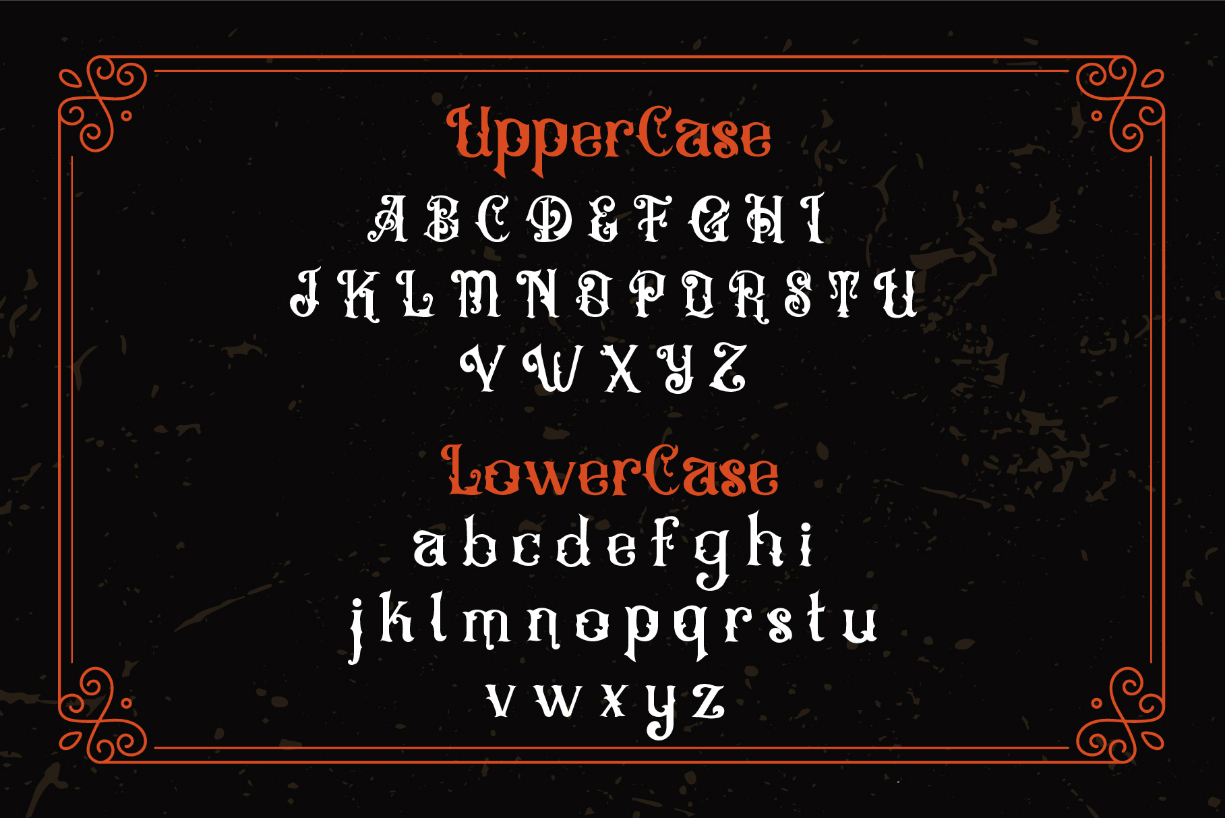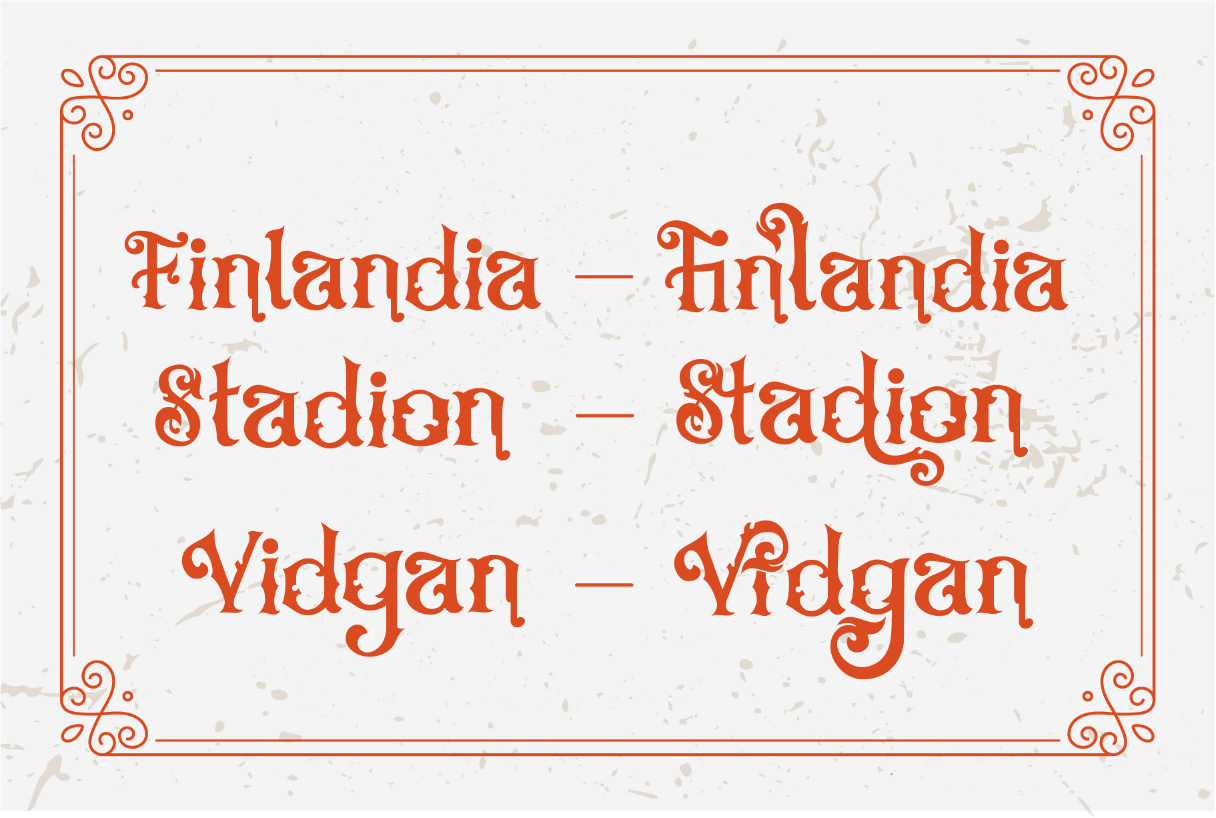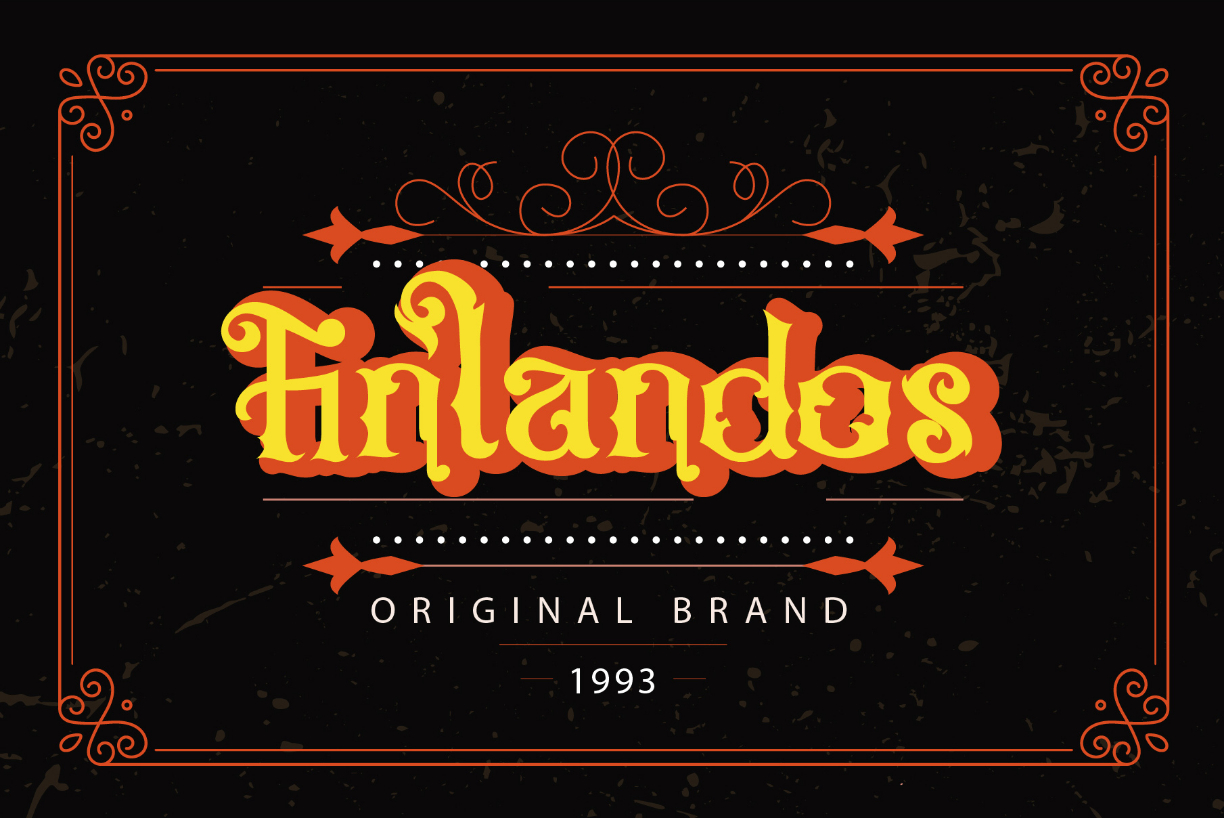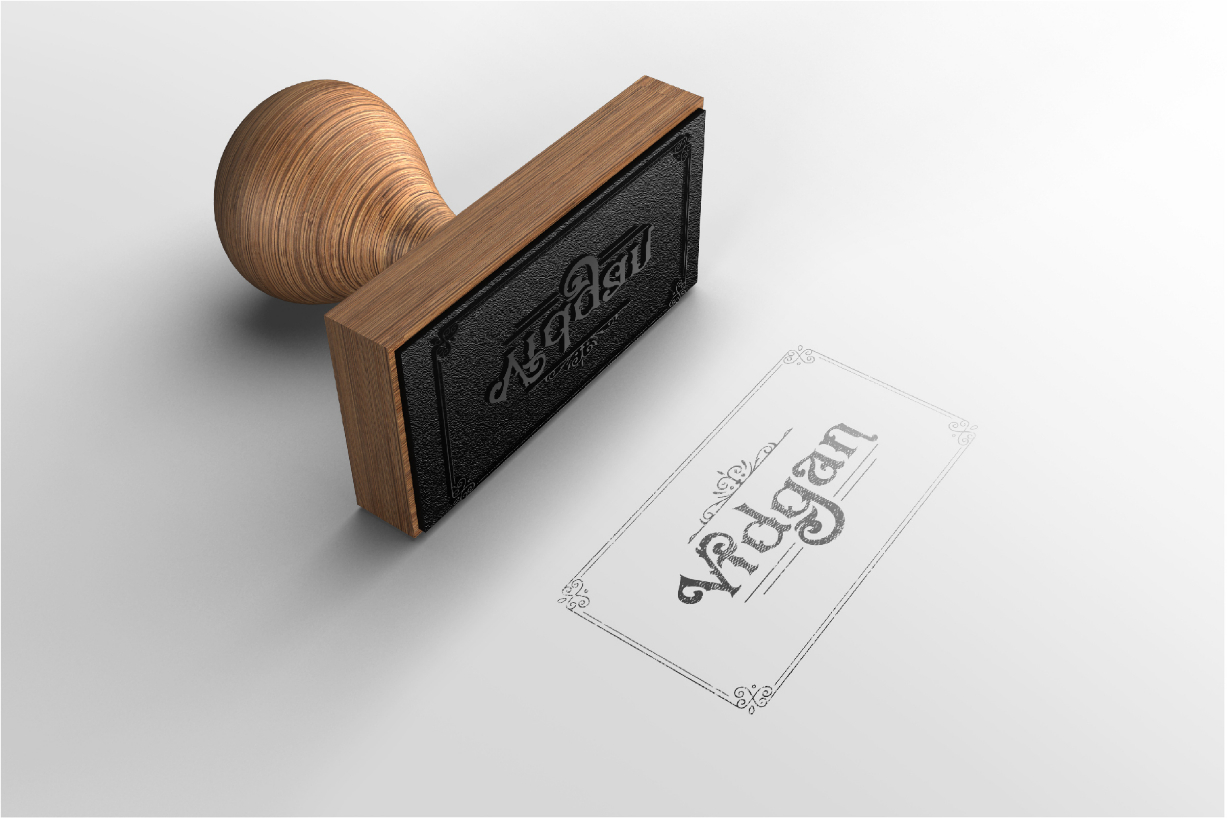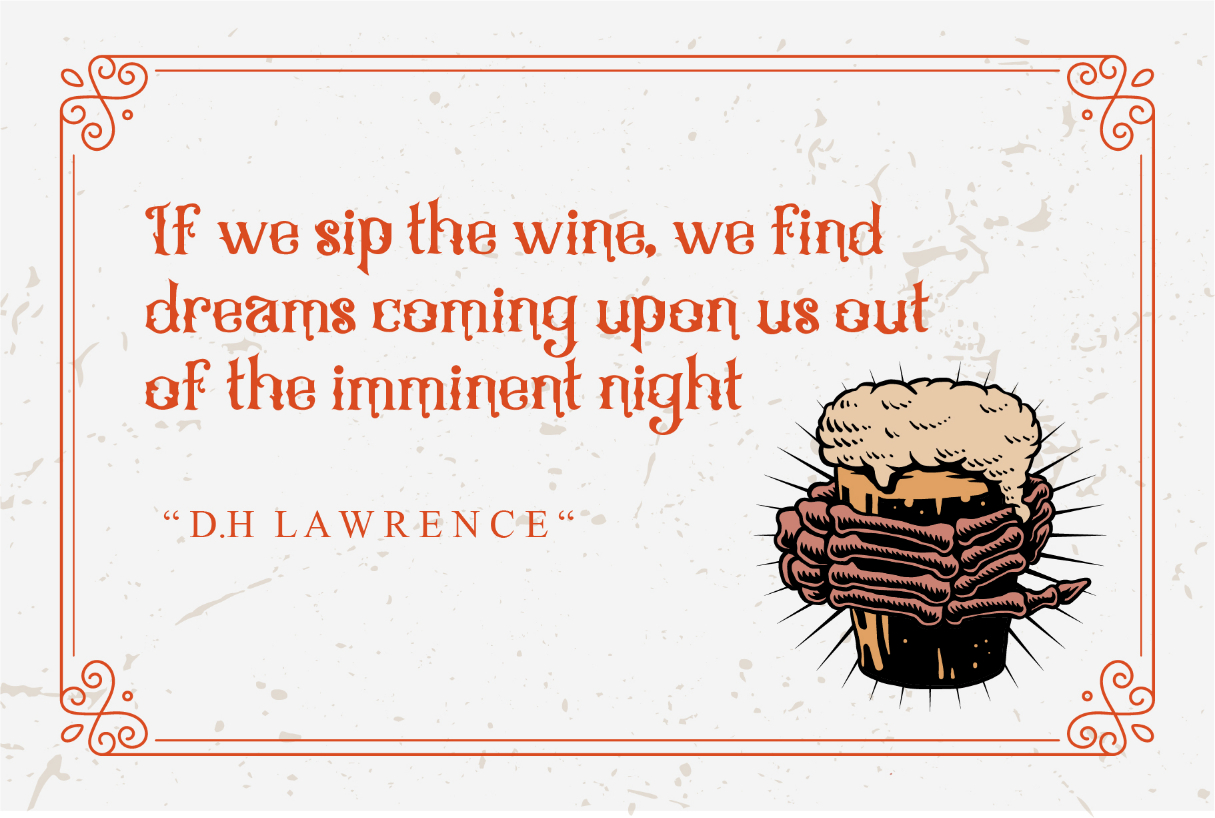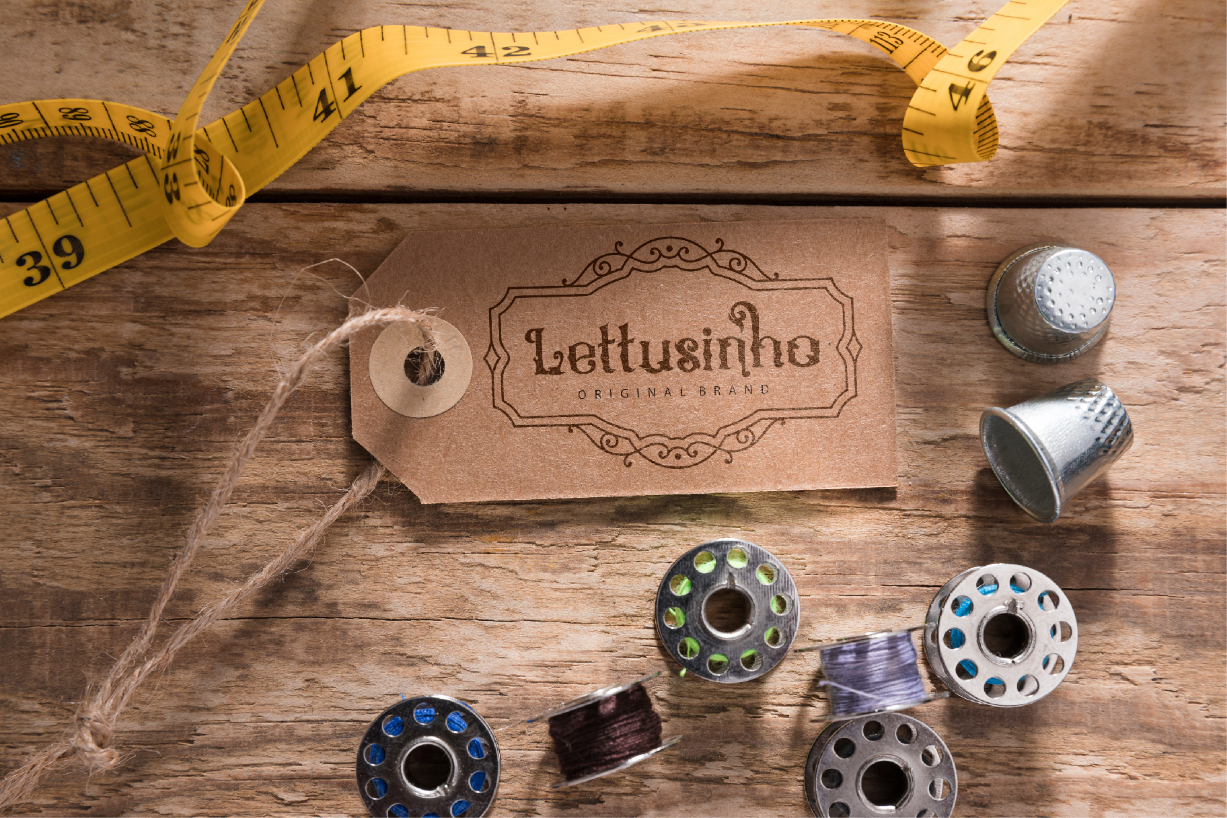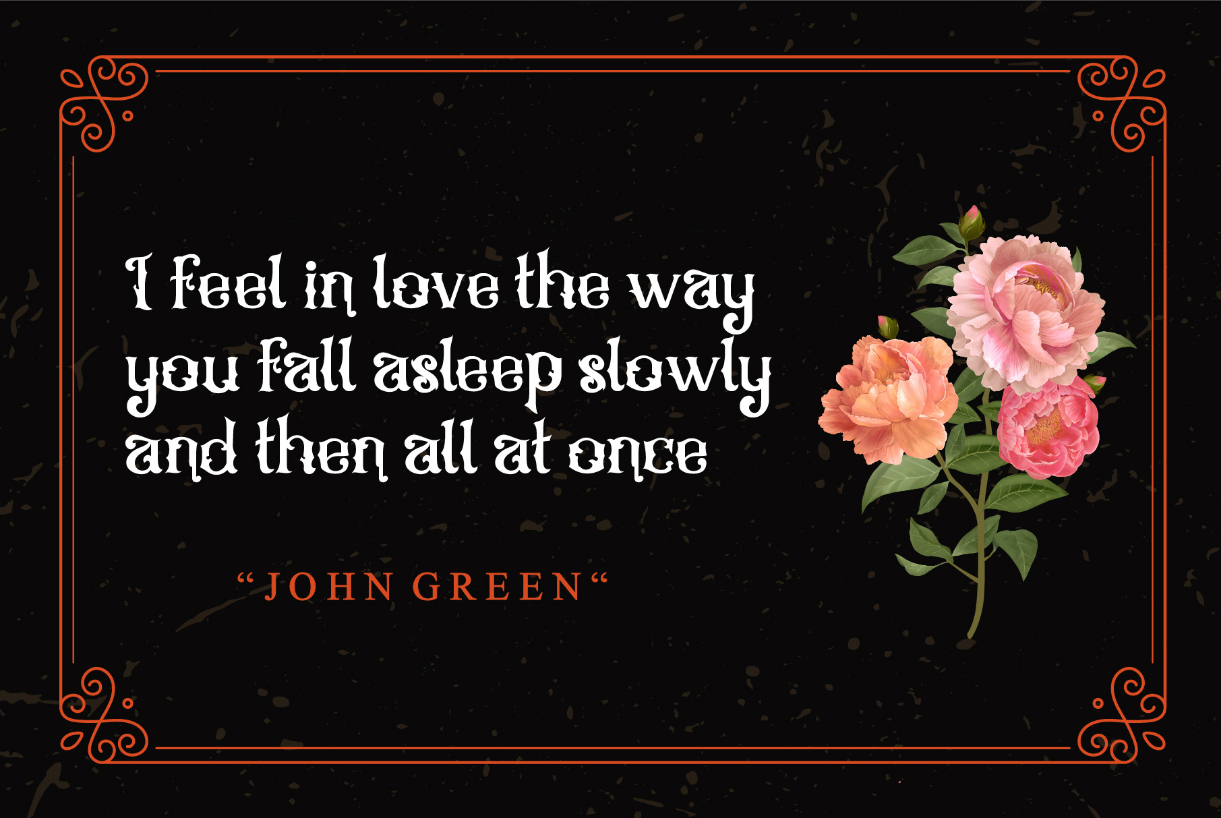
Vincent Font
About Vincent Font
Vincent is a unique and interesting blackletter font. Masterfully designed to become a true favorite, this font has the potential to bring each of your creative ideas to the highest level!